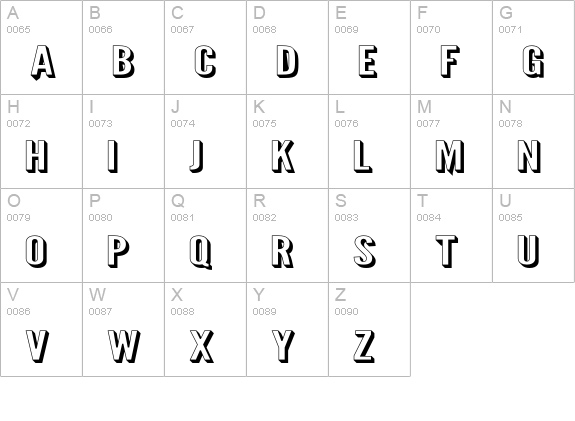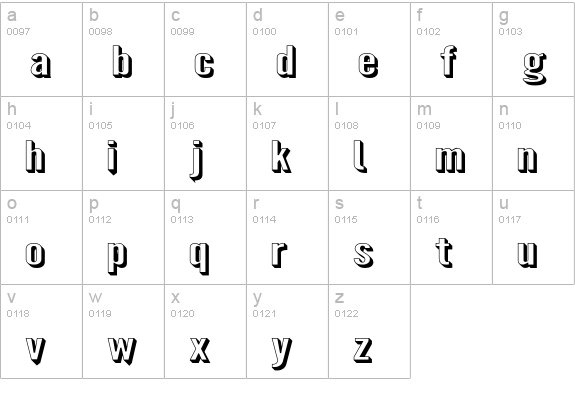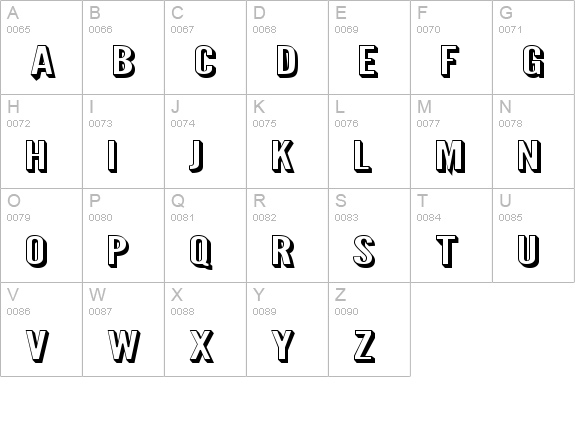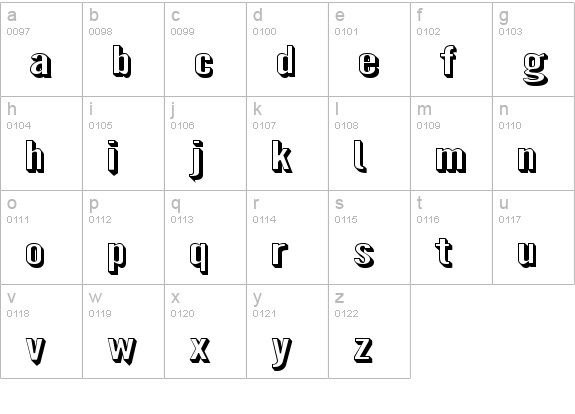
Introducing Warsaw Gothic SuperExtended Shadow, an extraordinary font that effortlessly combines the elegance of Gothic lettering with a touch of modernity. This font is the epitome of sophistication, making it the perfect choice for projects that demand a bold and captivating presence. With its elongated and shadowed characters, Warsaw Gothic SuperExtended Shadow adds depth and dimension to any design. Each letter exudes a sense of mystery and intrigue, creating an aura of uniqueness that is sure to captivate viewers. Whether you're designing a logo, a poster, or even a website, this font will elevate your work to new heights. What sets Warsaw Gothic SuperExtended Shadow apart is not only its stunning aesthetics but also its versatility. It effortlessly adapts to various design styles, making it suitable for a wide range of applications. From fashion to music, from art to advertising, this font adds a touch of edge and sophistication to any project it graces. And the best part? Warsaw Gothic SuperExtended Shadow is freely available to download at FontsMarket.com. Yes, you read that right! You can now bring your creative visions to life without worrying about breaking the bank. This font is a testament to the power of accessibility and the belief that great design should be available to all. So, don't miss out on the opportunity to make a statement with Warsaw Gothic SuperExtended Shadow. Download it for free today at FontsMarket.com and let your creativity take flight. Embrace the allure of Gothic lettering and unleash a world of possibilities in your design journey.